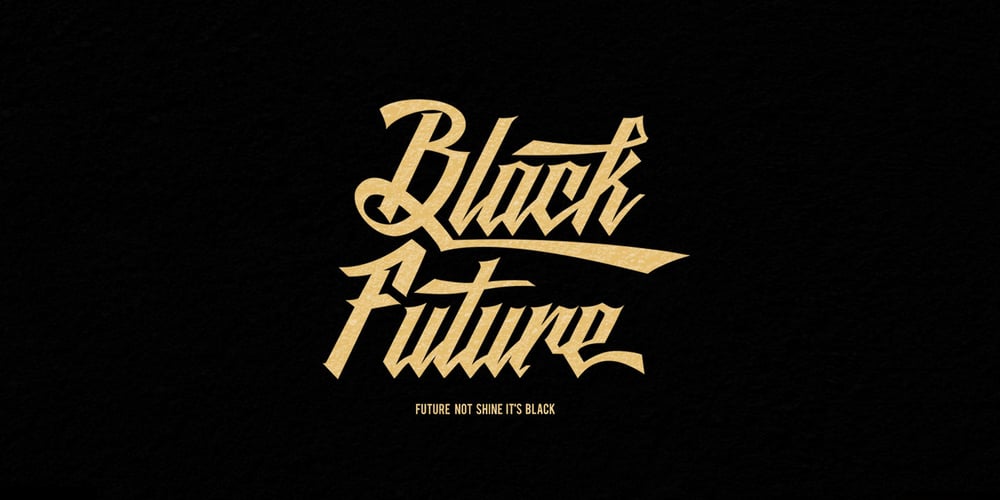
Black Future Font Family was designed by Cucu Supriyadi and published by Seventh Imperium. Black Future contains 1 styles and family package options. Black Future typeface is a new calligraphy script font combined with street art calligraphy and blackletter, that results in a wide range of calligraphy brush to achieve a typeface with sharp edges that looks brave. Contains almost 480 glyphs with opentype features. Stylistic alternates, swash and more. Can be used for various purposes.